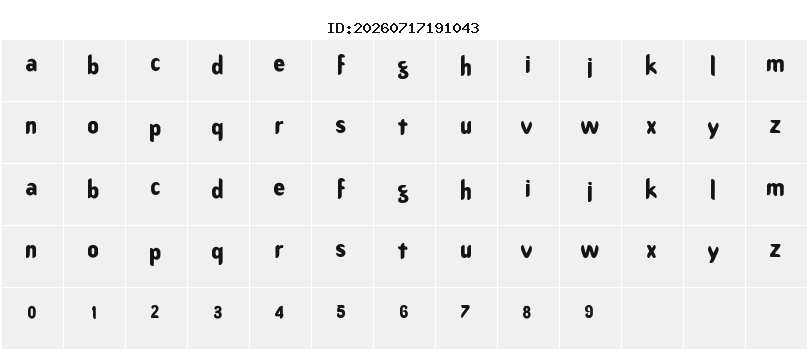
Benny Bold Preview
• Font Name: Benny Bold
• Font ID: Benny Bold
• Full Font Name: Benny Bold
• Version: 1
• PostScript Name: BennyBold
• Character Count: 63
About Benny Bold.ttf
Benny Bold.ttf is a modern, elegant sans-serif font designed for ultimate readability and visual harmony. Perfect for branding, headlines, web design, and print materials.